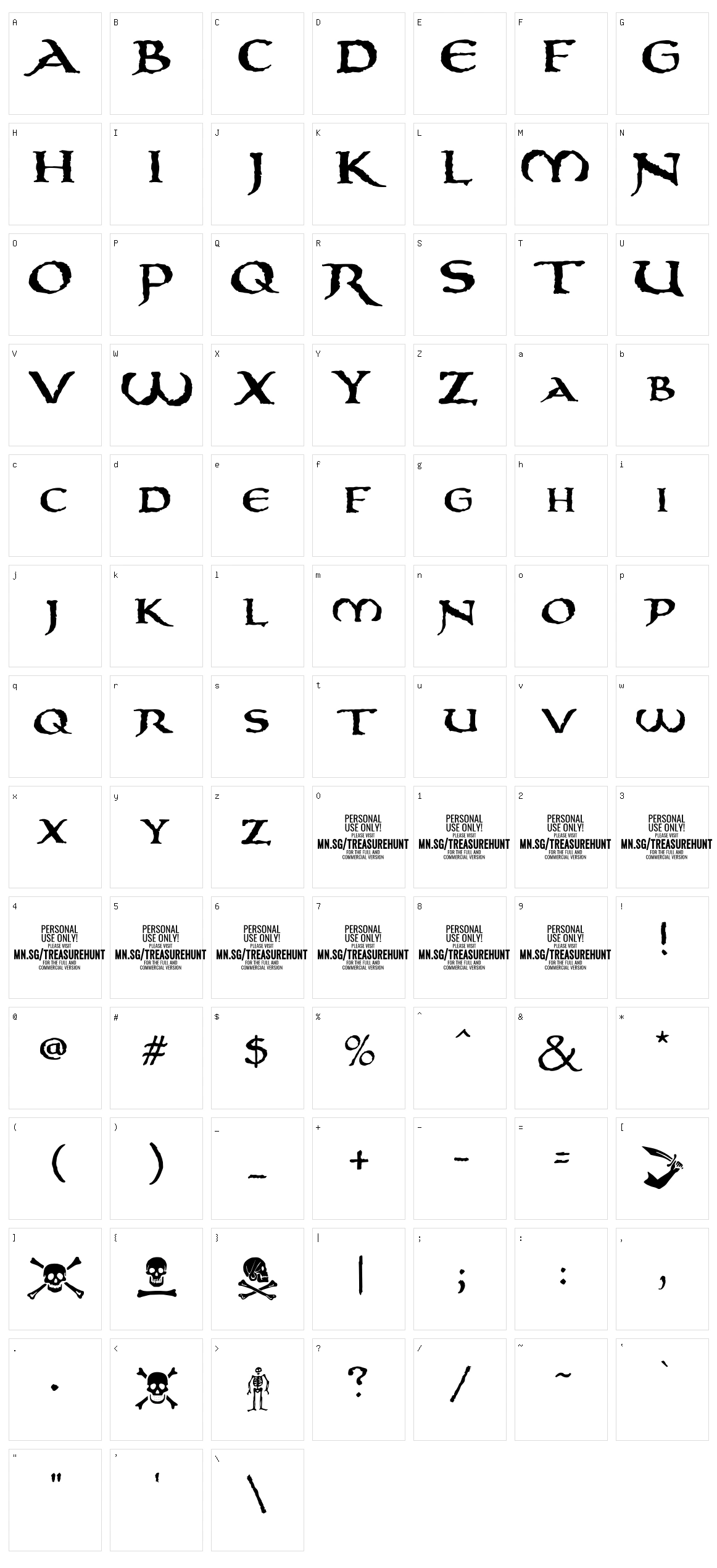
Treasurehunt
Treasurehunt is an old seafarer typeface.
With Caribbean vibes, this calligraphic font will bring you back to the rough time of raiders and rum.
Its beautiful ornamental letterforms strongly contrasts against its jagged Blackbeard appearance and tough personality.
Use characters { } [ ] ¤ > < to make pirate symbols.
Example: Treasure ¤ Hunt
The Treasurehunt typeface family was drawn and completed by Joanna Vu and Mans Greback in 2022, and is provided in Regular and Italic, two vintage fonts complimenting each other.
The font is built with advanced OpenType functionality and has a guaranteed top-notch quality, containing stylistic and contextual alternates, ligatures and more features; all to give you full control and customizability.
It has extensive lingual support, covering all Latin-based languages, from Northern Europe to South Africa, from America to South-East Asia.
It contains all characters and symbols you'll ever need, including all punctuation and numbers.